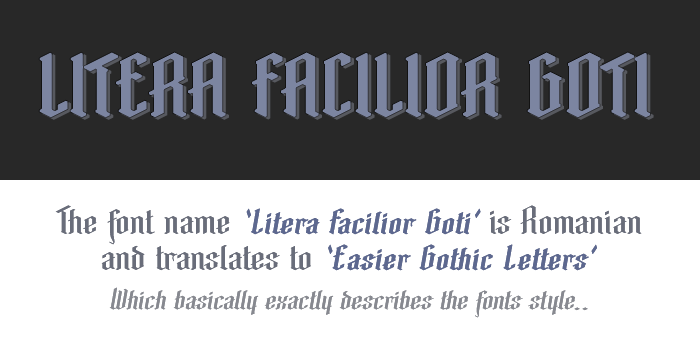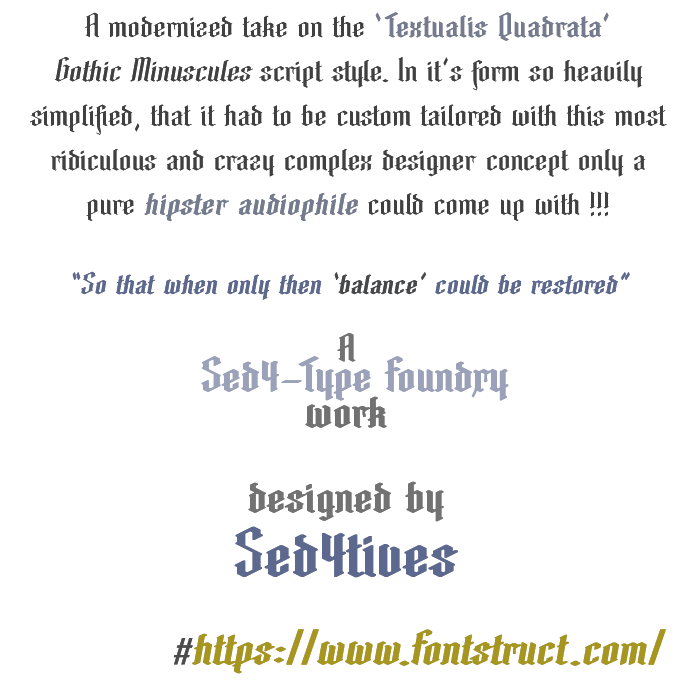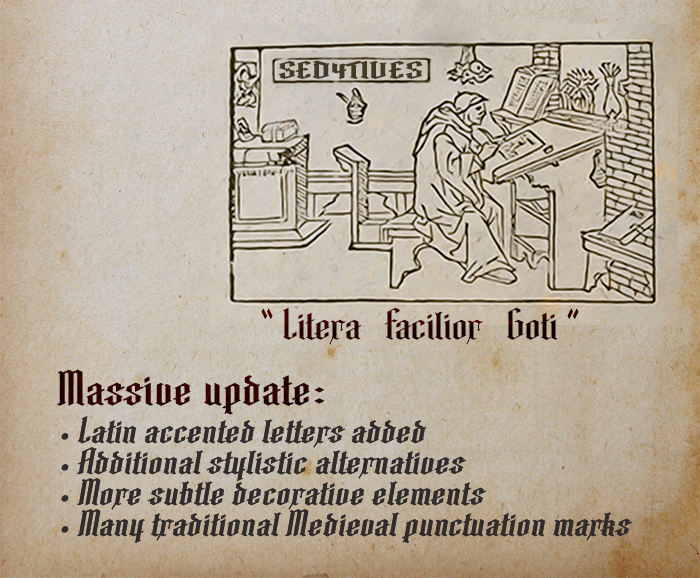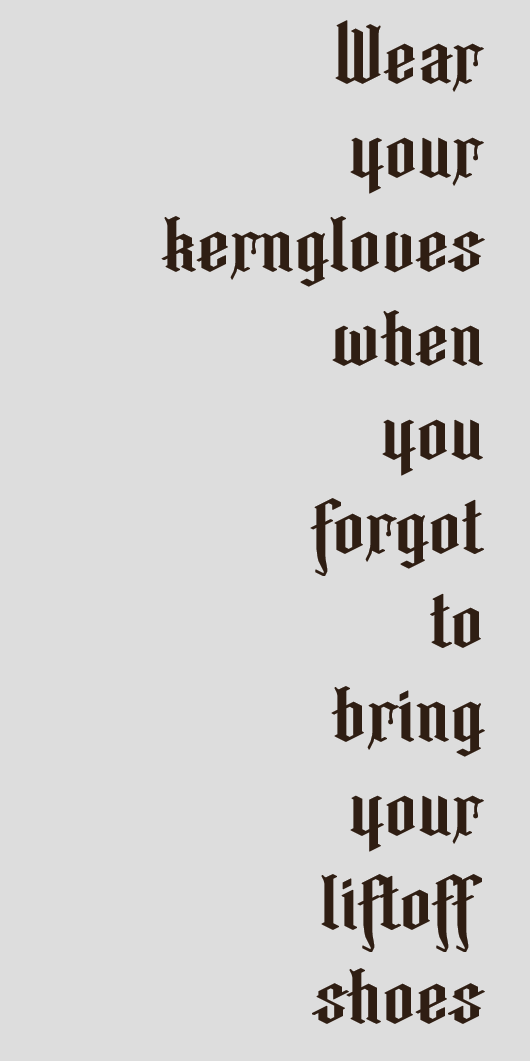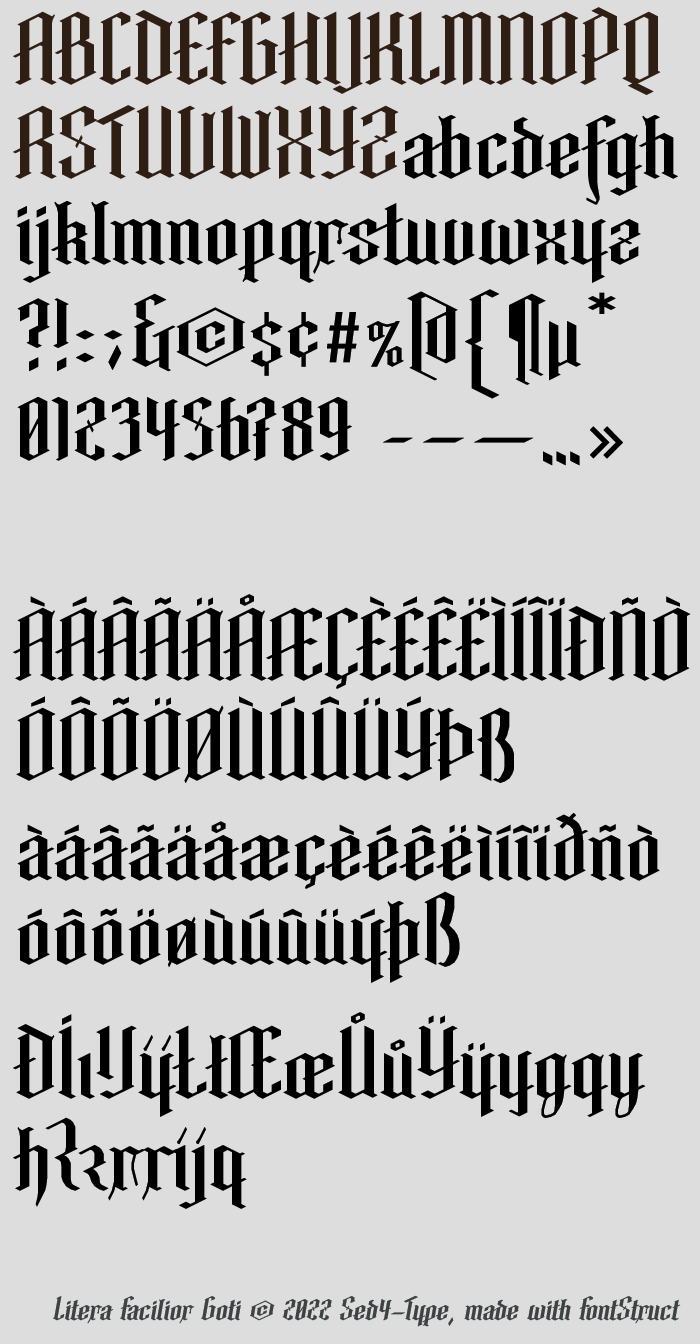
• LITERA FACILIOR GOTI ― A 'Blackletter' script style with a twist
Also known as Gothic script, Gothic Minuscule, or Textura, was a script used throughout Western Europe from approx. the 12th untill the 17th century.
This FontStruction was aimed at mimicing the aesthetic approach of a ― ‘Textura’ variant of the Gothic Minuscule script style, more accuratly refered to as ‘Littera Textualis’. This style is most characterized by its strong sturdy letterforms, with distinguishing sharp, straight and angular features as oposed to the other variations in this catagory.
In terms of authenticity to the original predecessing formal script family, my ‘Litera Facilior Goti’ didn't took a whole lot of care for authenticity. The idea was to take a more independent and experimental approach to shaping the letters and forms, so it wasn't necessarily inspired by any specific typeface in particular, it rather recycles certain characteristics of a ‘Textualis Quadrata’, but beyond those aspects of general guidelines it evolved on its own.
Some of the areas where the design tends to really stray away from the tradition is for example the serifs:
It's often that I have some trouble with the weight ratio distribution of serifs and such elements in simplified modular based geometric Blackletter fonts. In many of such designs they tend to have been left pretty static and equal in thickness throughout the full character set. Which I think is often either having some letters look clumsy or even weird, and generally speaking also often making them appear too thick.
So this was one of the things I had to try and adress, I experimented a little with the style and forms of the serifs. Eventually this resulted in multiple deviations in variety to mix and create a more dynamic distribution. similar to what was done in less formal scripts. Over time they became ever further simplified, letterforms that involved less reorientation of the pen, in pursuit of styles that were quicker to write.
But taken as a whole typeface I find that it is having this certain ‘random-ish’ characteristic that is simply working for the better of these particular style fonts.
I'm still working on improving its overall rhymes and reasons to a certain point that is acceptable, balanced and with enough consistency. But up to this stage I personally think that the concept worked out quite successfully so far. And that even despite the fact that its stripped down of most ornamental decorative calligraphic extravaganza, it still managed to capture a convincing portion of that ‘Medieval ’ looks and personal flavour.
But I think that in the end this became a pretty neat looking font and it would classify somewhere between a hybrid mix of simplified Blacklettering and a drunken man's ‘Textualis’.